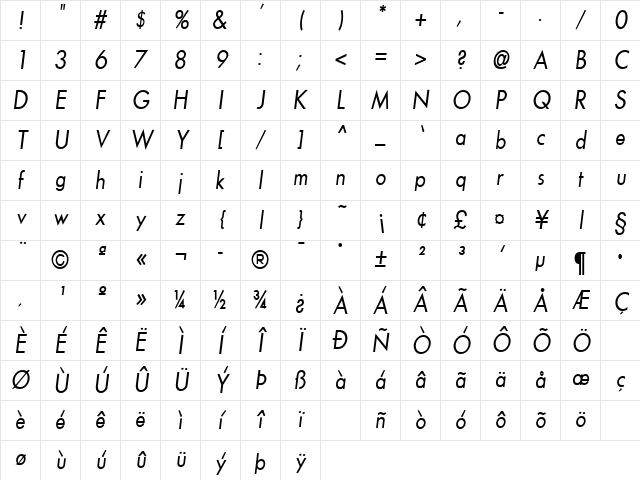
FutenaThin is a composed and adaptable typeface that performs quietly and consistently across a wide range of design contexts. The slanted form adds forward momentum and visual energy. Its slender proportions lend an understated elegance to any composition.
Pro Tip: Use FutenaThin for emphasis, pull quotes, and subheadings where its slanted energy can add rhythm to the layout.